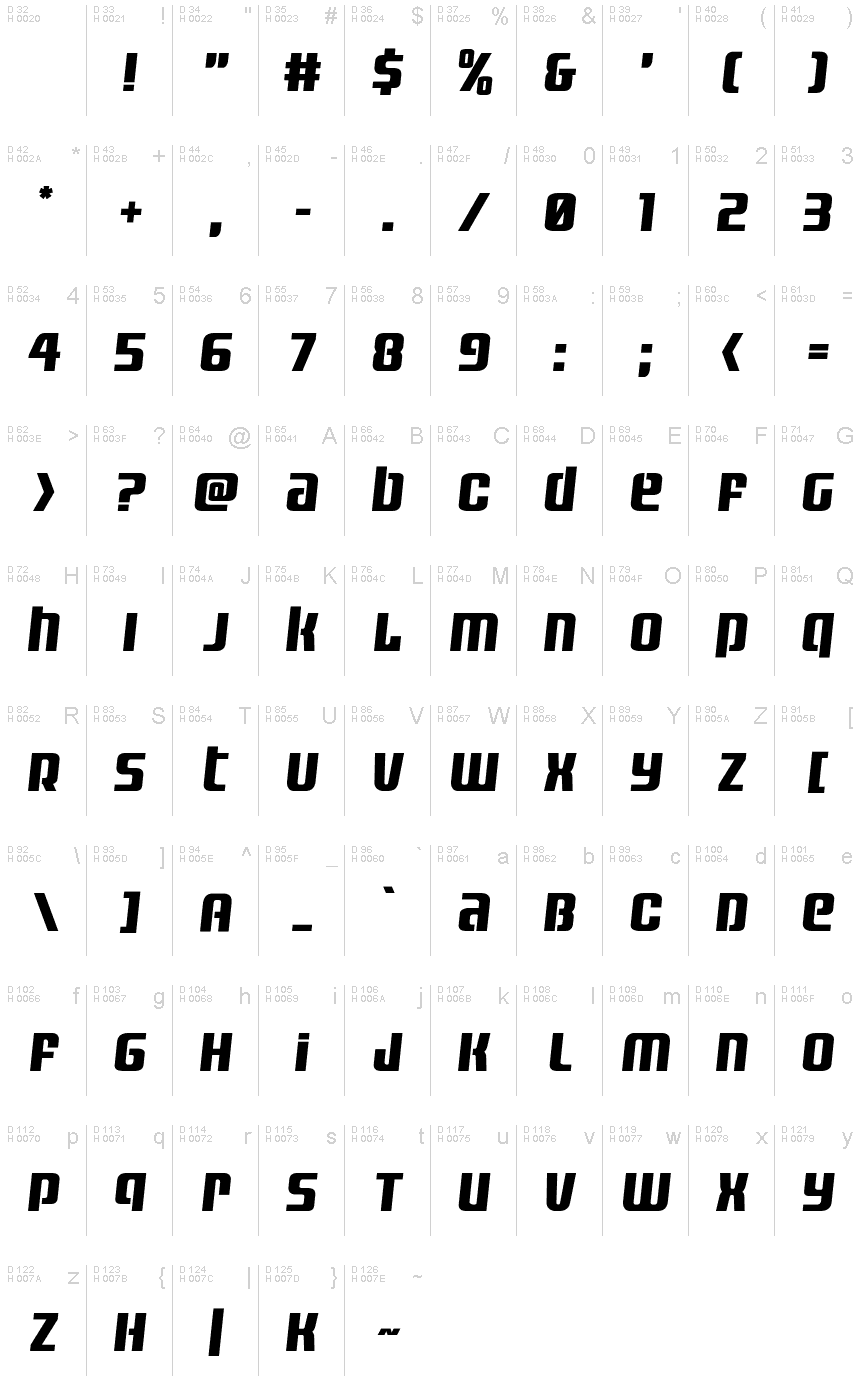
Vanguardian Semi-Italic
Vanguardian Semi-Italic is a bold and futuristic display font designed by Daniel Zadorozny. With its unique semi-italic style, it's perfect for projects that require a high-tech and modern vibe, such as technology company branding, gaming graphics, or movie titles. Use it to add a touch of sleekness and sophistication to your designs, or to create an edgy and futuristic look that's sure to turn heads. Vanguardian Semi-Italic is the perfect font for those who want to stand out in a sea of sameness.